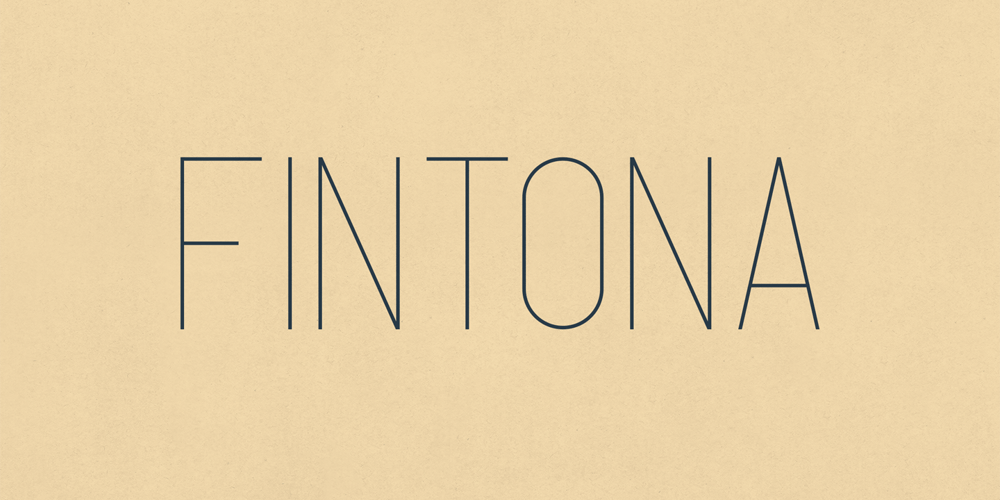
Fintona Font Family was designed by Vladimir Fedotov, Plamen Petrov and published by VP Creative Shop. Fintona contains 4 styles and family package options. Introducing Eunoia – Sans Serif Typeface – 4 weightsEunoia is minimal, clean typeface with 4 fonts, ligatures and multilingual support. It’s a very versatile font that works great in large and small sizes.Eunoia is perfect for branding projects, home-ware designs, product packaging, magazine headers – or simply as a stylish text overlay to any background image.